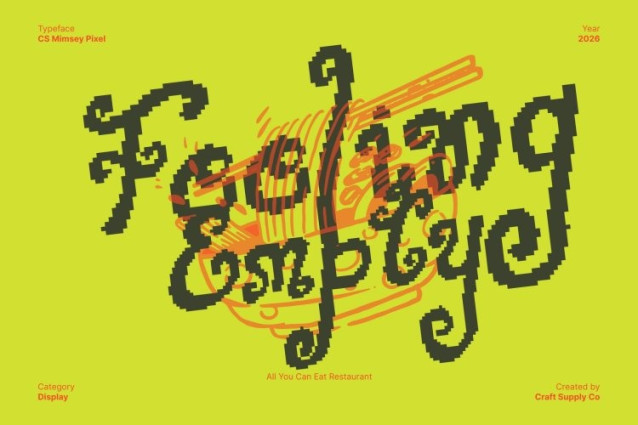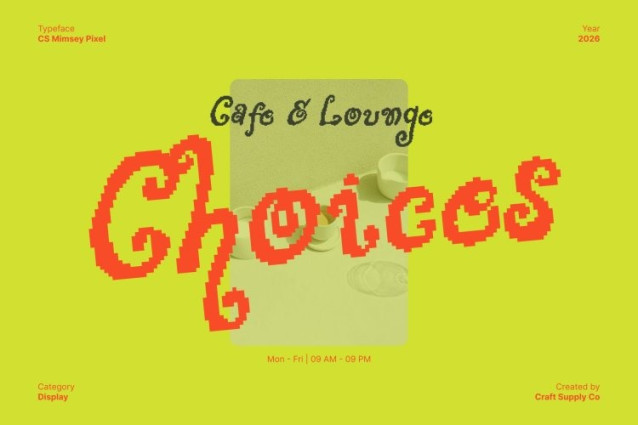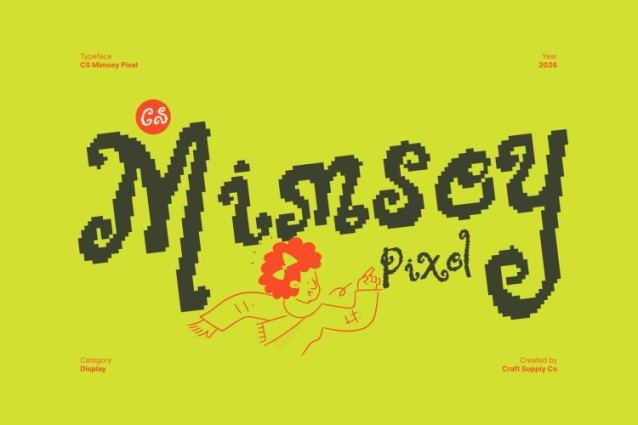
CS Mimsey Pixel Font
CS Mimsey Pixel Font This is a decorative display font featuring curved letterforms, fantasy-inspired shapes, and subtle pixel construction. Blending playful elegance with imaginative digital styling, this font feels magical, expressive, and full of personality perfect for designs that aim to charm and delight.
Whimsical Pixel Character for Storytelling
The soft curves and whimsical proportions create a sense of enchantment, while pixel accents add a nostalgic, storybook-digital feel. Each character feels lively and narrative-driven, making this font ideal for children’s books, fairy tales, educational projects, and imaginative visual storytelling.
Fantasy Details with Retro-Digital Charm
Intricate decorative touches and etchy fantasy details are enhanced by pixel structure, giving the font depth and uniqueness. This blend of ornamentation and digital texture ensures it stands out in posters, creative branding, and expressive layouts with a magical yet modern twist.
Versatile for Playful Branding and Creative Media
Beyond books and posters, this font works beautifully for playful branding, merchandise, invitations, games, and digital media. Its combination of whimsical elegance, fantasy detailing, and pixel charm makes it a perfect choice for designers looking to spark imagination and create memorable, enchanting visuals.